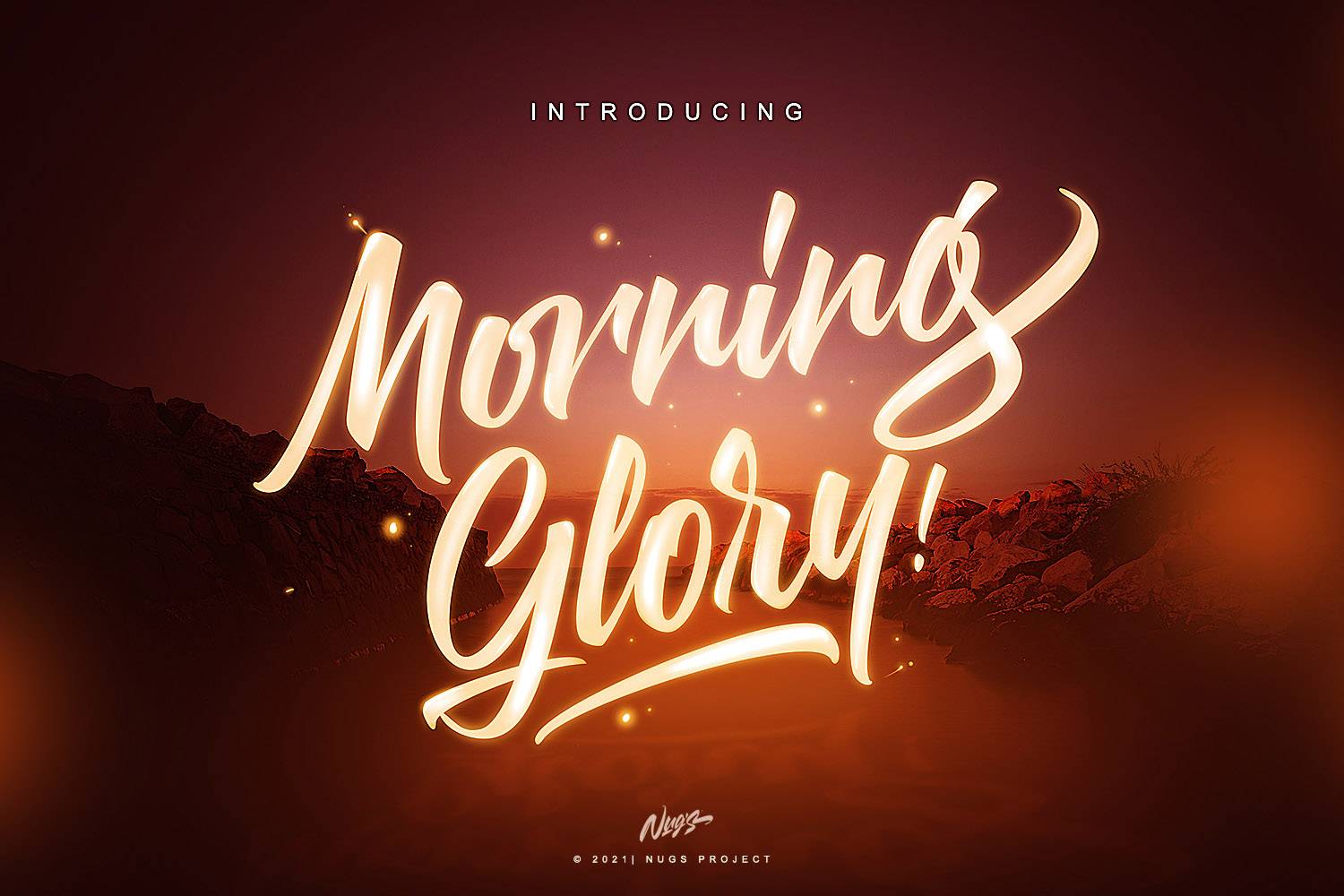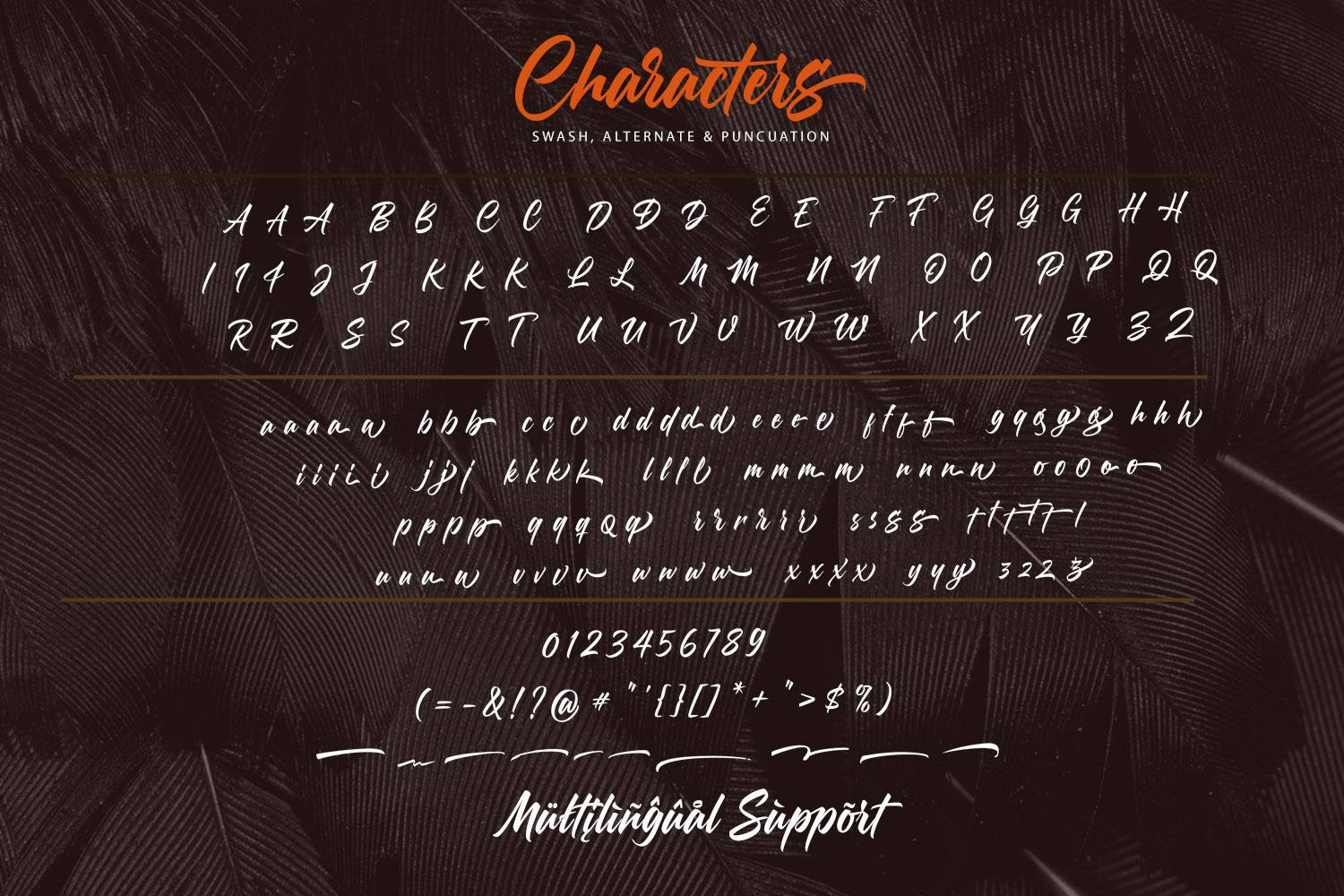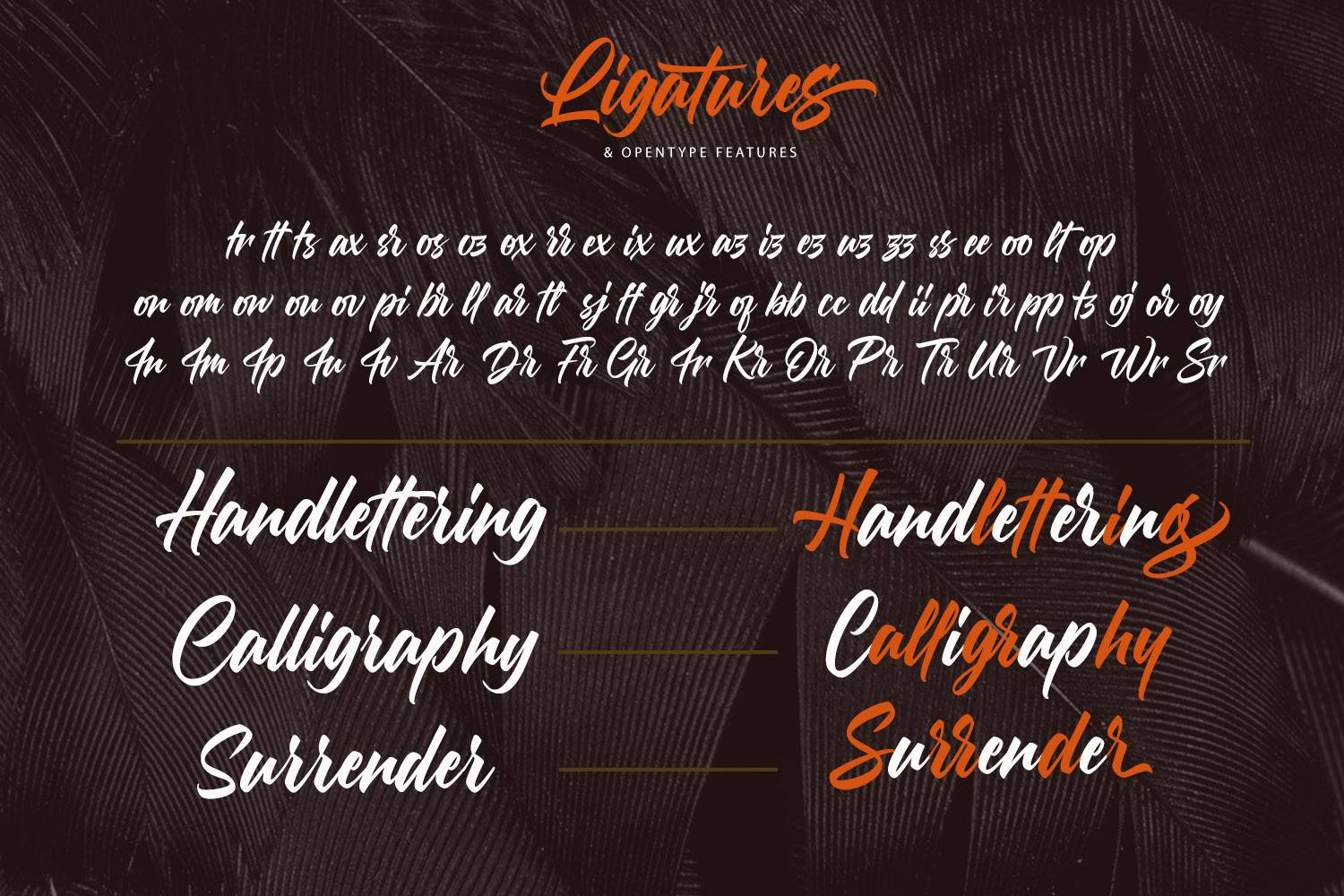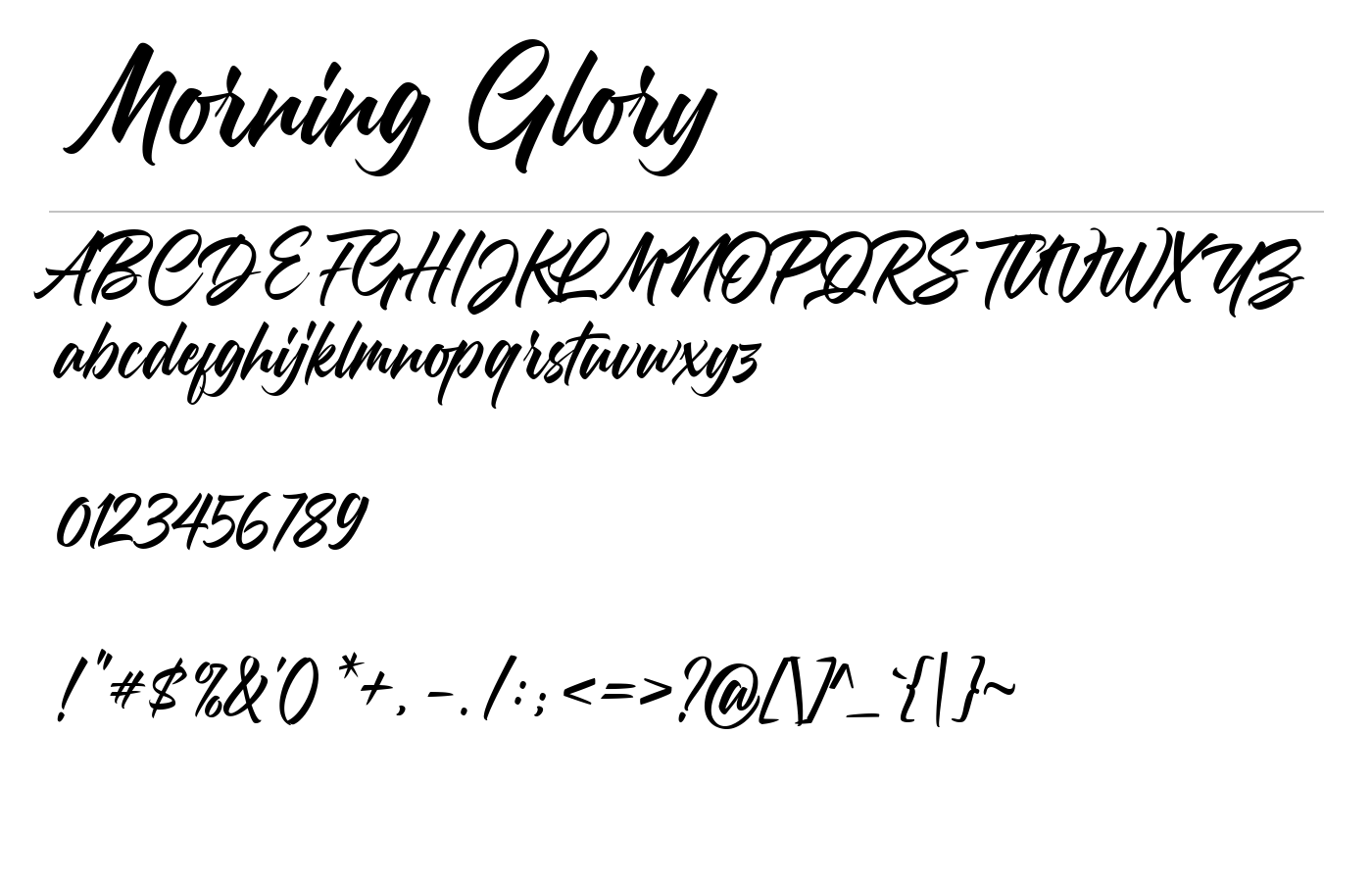
Morning Glory is a lively and elegant script font with a smooth, handwritten feel. Its medium weight and flowing strokes create a stylish yet approachable personality, making it perfect for invitations, branding, and creative projects that seek a personal, artistic touch. This font works beautifully in designs that aim to convey warmth and charm with a modern, casual elegance.
Morning Glory Font
About Morning Glory Font
| Font family | Morning Glory Font |
| Release date | 2021-01-01 |
| Designer | Andrie Nugrie |